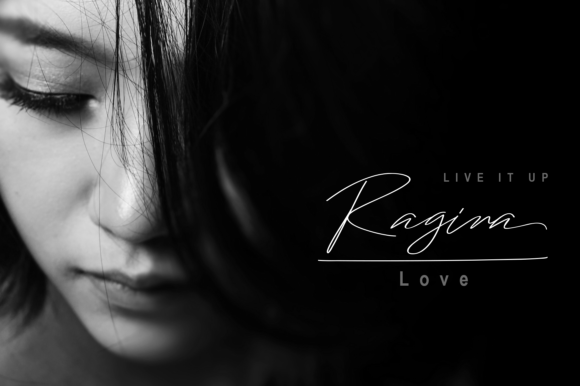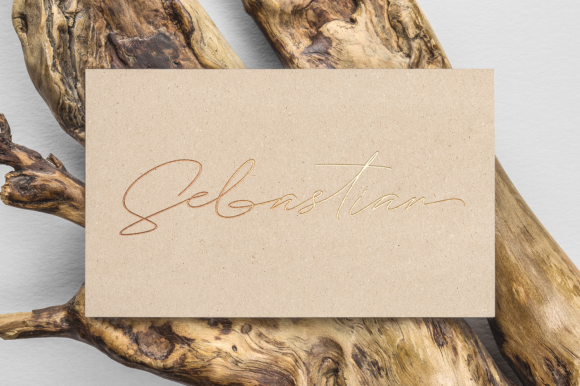
Samantha Font
db-ku.com - Script & Handwritten -- Samantha is combining classic calligraphy with an modern style. It’s inspired by signatures and stylish handwriting. Samantha can be used for various projects such as logotypes, wedding invitations, logos, packaging and much more!